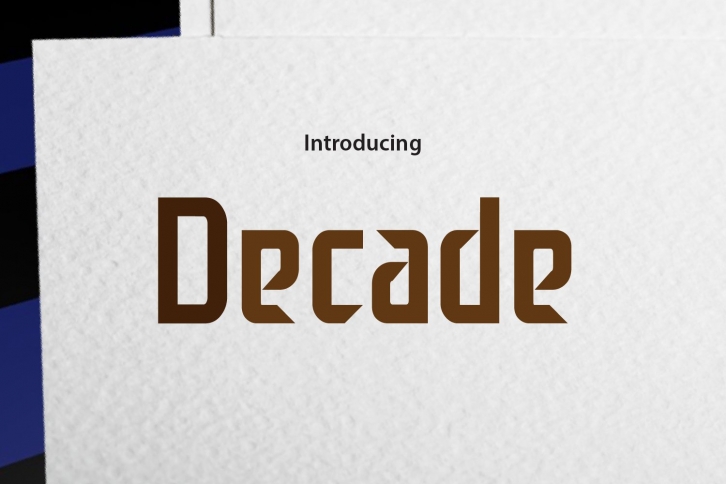
Decade is a gorgeous font that was realeased on August 18, 2020. The font can be used in many style contexts and design environments. Perfect for invitations, magazines, websites, logos, and more! It was designed by daonlyaan and the file size is 12.64 MB. Thanks for checking out this font!